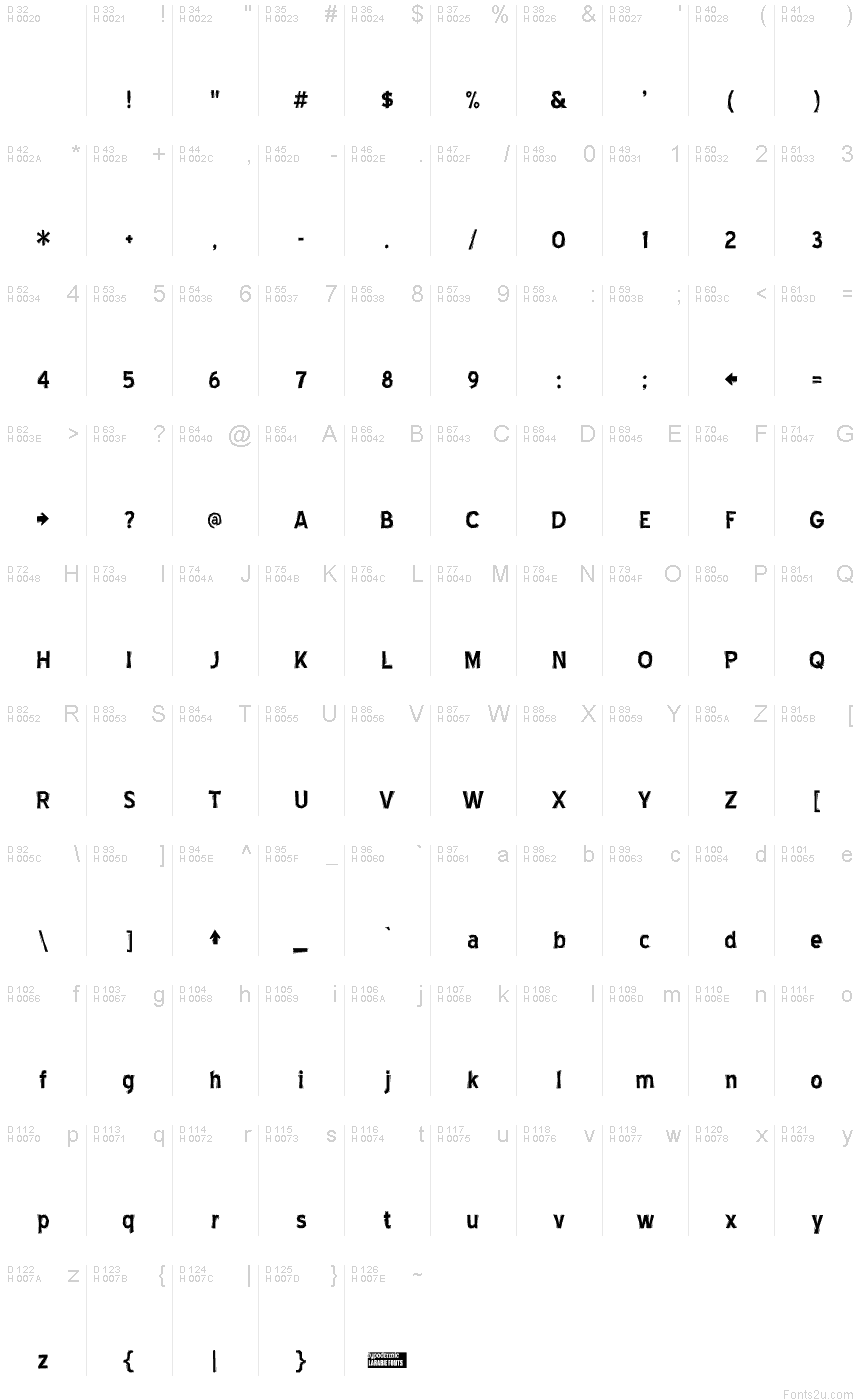
Blue Highway Linocut
Blue Highway Linocut font by Ray Larabie is a free distorted display font, with chunky letterforms that look carved by hand-ragged edges, nicks, and inky gaps that give your words a gritty, printed-on-rough-paper bite. It brings instant texture without needing overlays, and it stays readable even when it gets loud.
Using Blue Highway Linocut works beautifully for gig posters, indie album covers, skate or streetwear graphics, zines, Halloween promos, game title screens, punchy YouTube thumbnails, and sticker-style merch. Set it a little larger and pair it with a clean sans typeface for the small details so the rough cuts can do the talking.